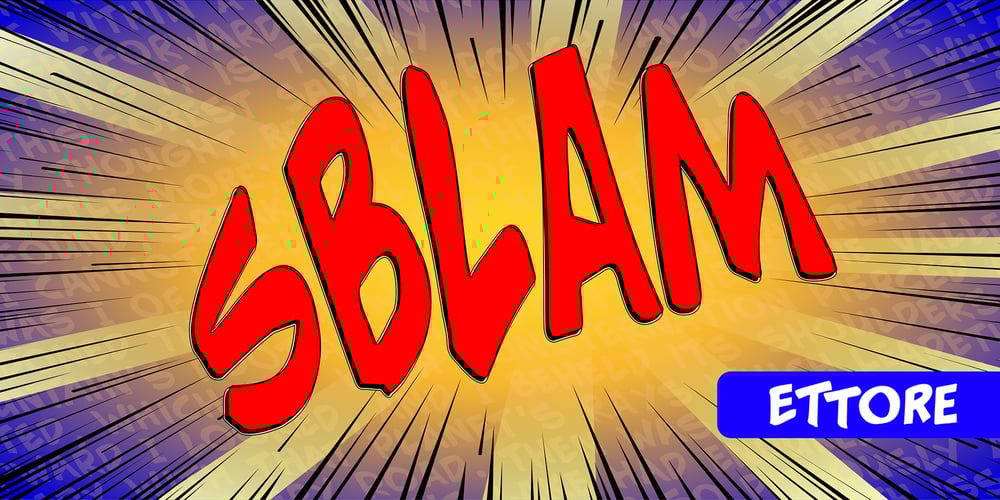
Ettore
Ettore font
Ettore Font Family was designed by Paolo Lo Galbo and published by Comics Font Store. Ettore contains 4 styles and family package options. ETTORE is a font for onomatopoeia. Friendly-looking, it is inspired by the lettering of the classic French comics with an adventurous and humorous font-style. It is chunky, marked, with low contrast. The kerning is perfectly balanced. It is made with a chisel-tipped marker determining its thick, square, flat stroke.